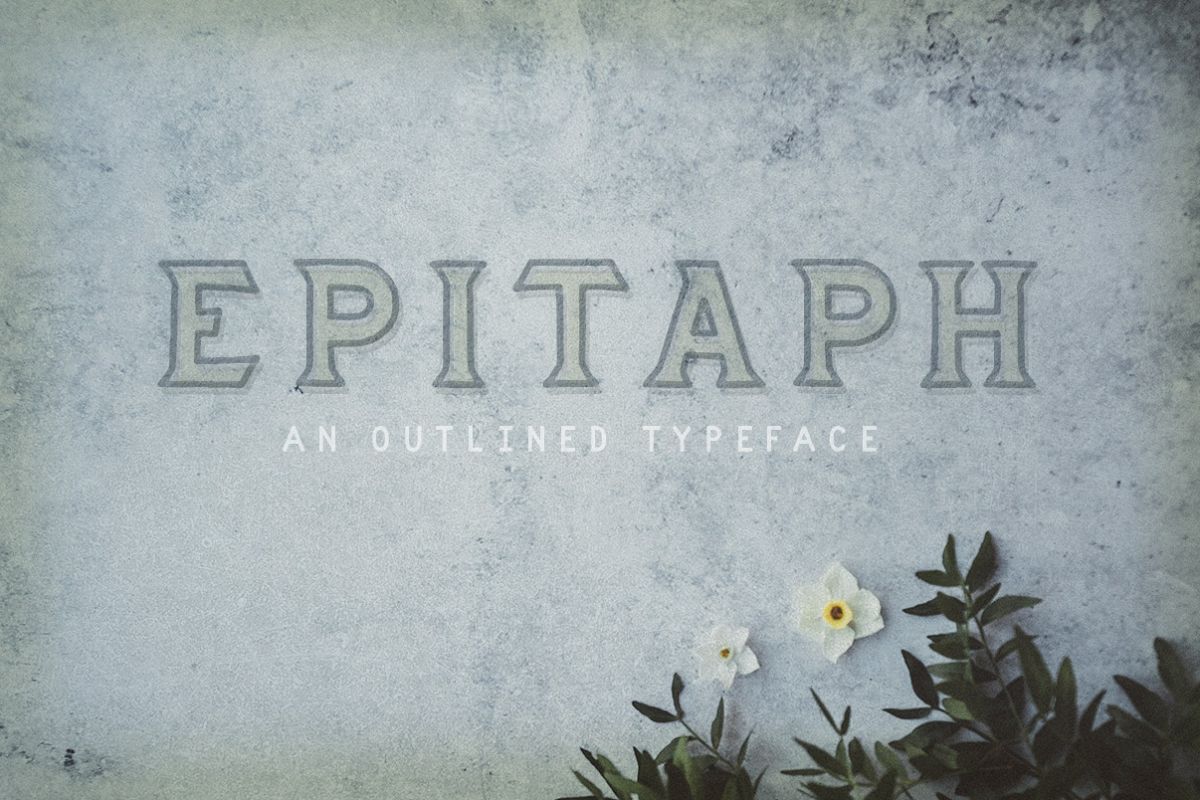
Epitaph
Epitaph is a stout, outlined typeface. This all-caps alphabet make a great compliment to photography and Illustrations, but also stands strong on it's own.